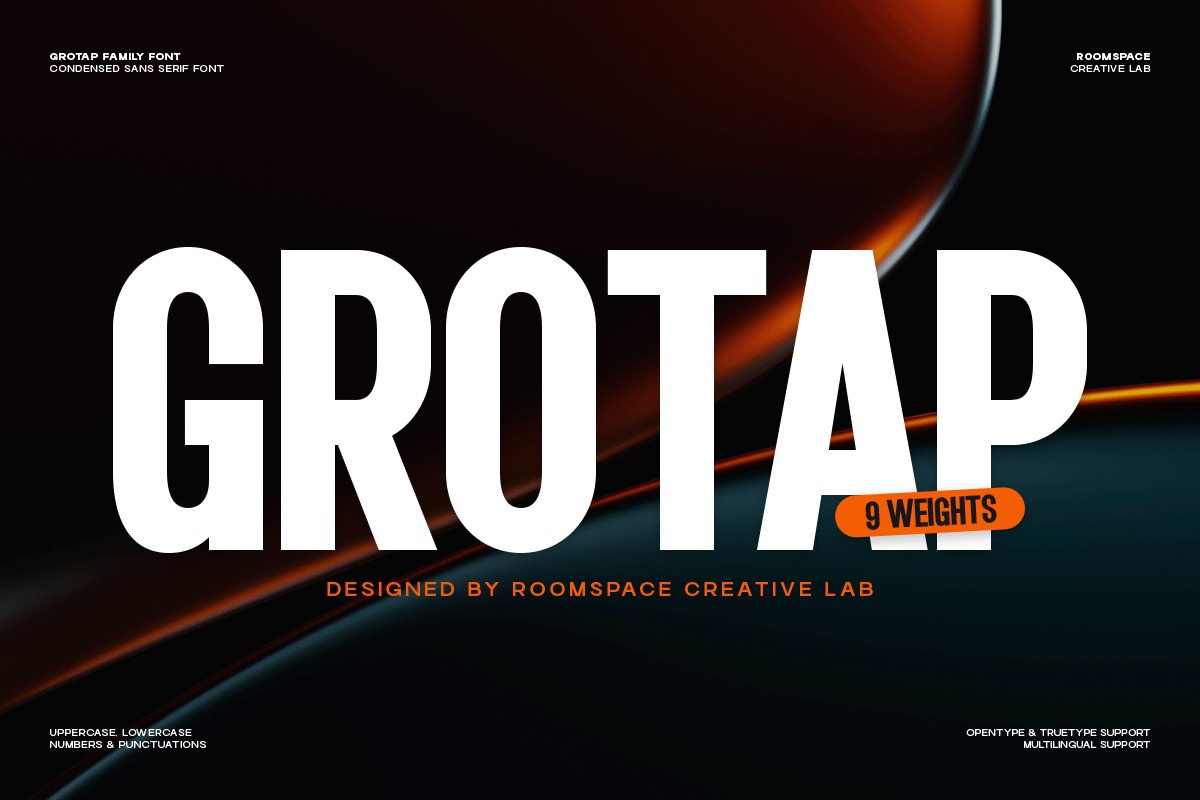
Grotap Font
Grotap Font is a modern condensed sans-serif font family designed for impactful visual expression. With 9 weights, clean shapes, and a strong vertical presence, it is perfect for headlines, branding systems, posters, and digital layouts that require bold personality. Its tight proportions and professional kerning deliver clarity and confidence across any design medium.